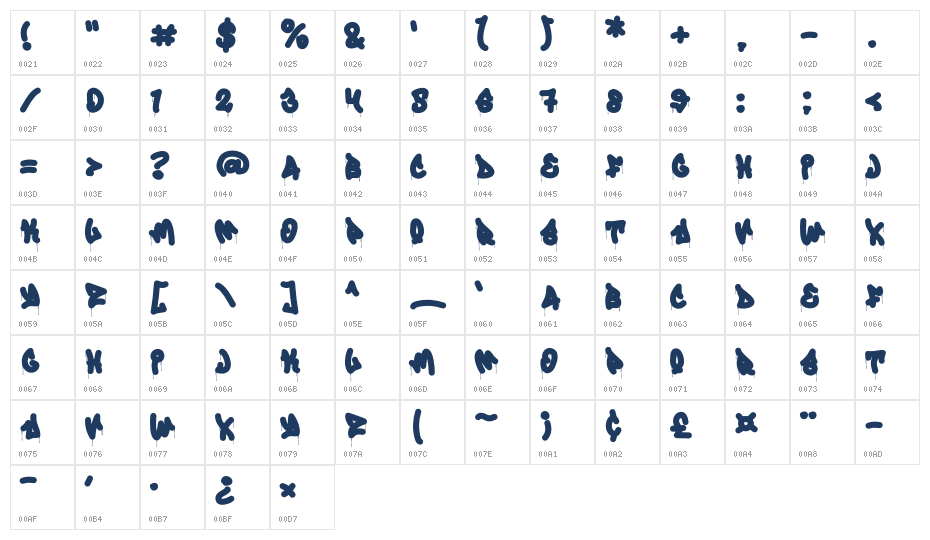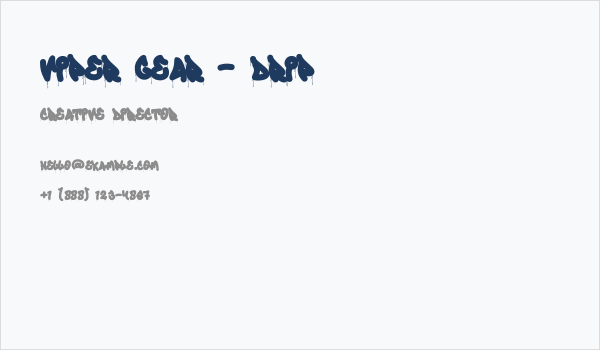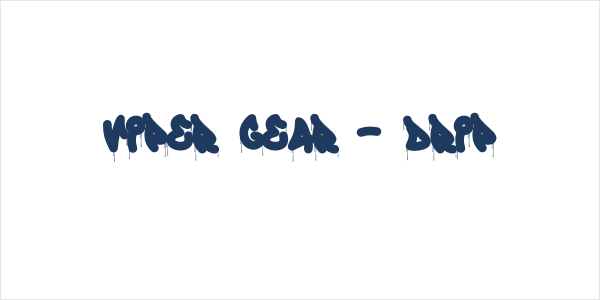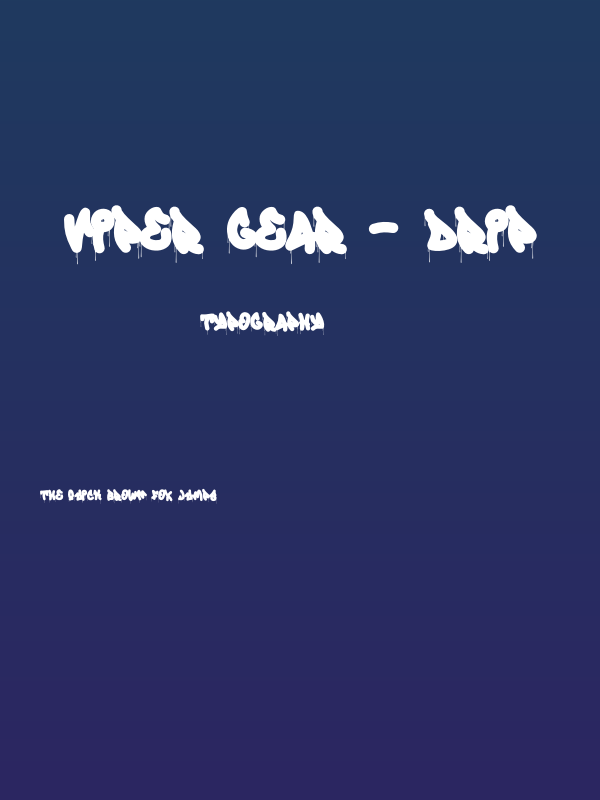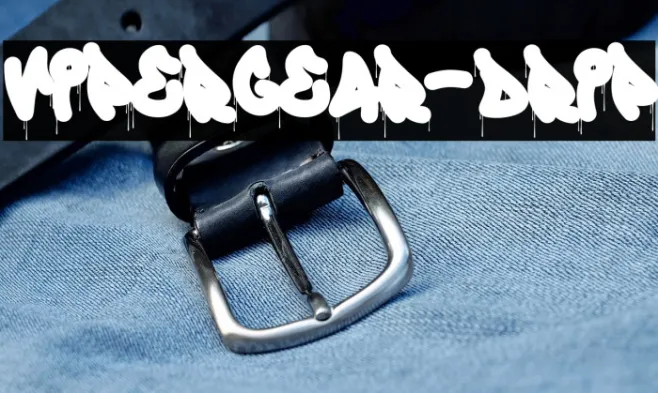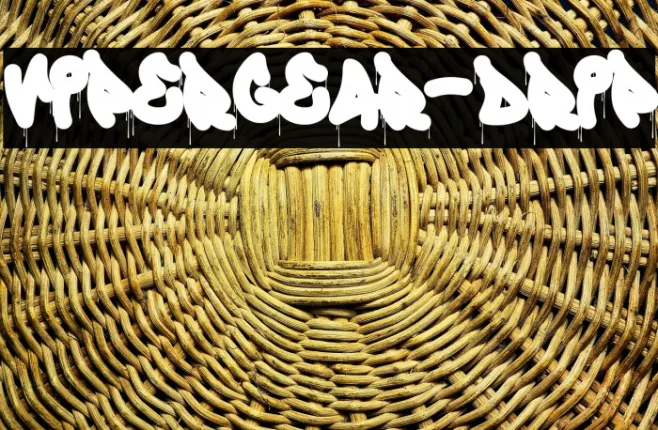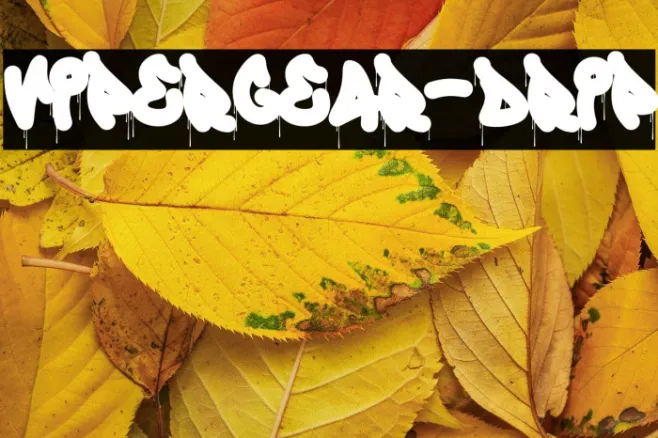
Viper Gear - Drip Font
Viper Gear - Drip Description
Bold, graffiti-style font with a dripping paint effect, characterized by rounded, irregular shapes and a casual, urban aesthetic.
Viper Gear - Drip
| Overall Style | Urban, Graffiti, Casual |
| Use Case | Headlines, Posters, Logos, Youth branding |